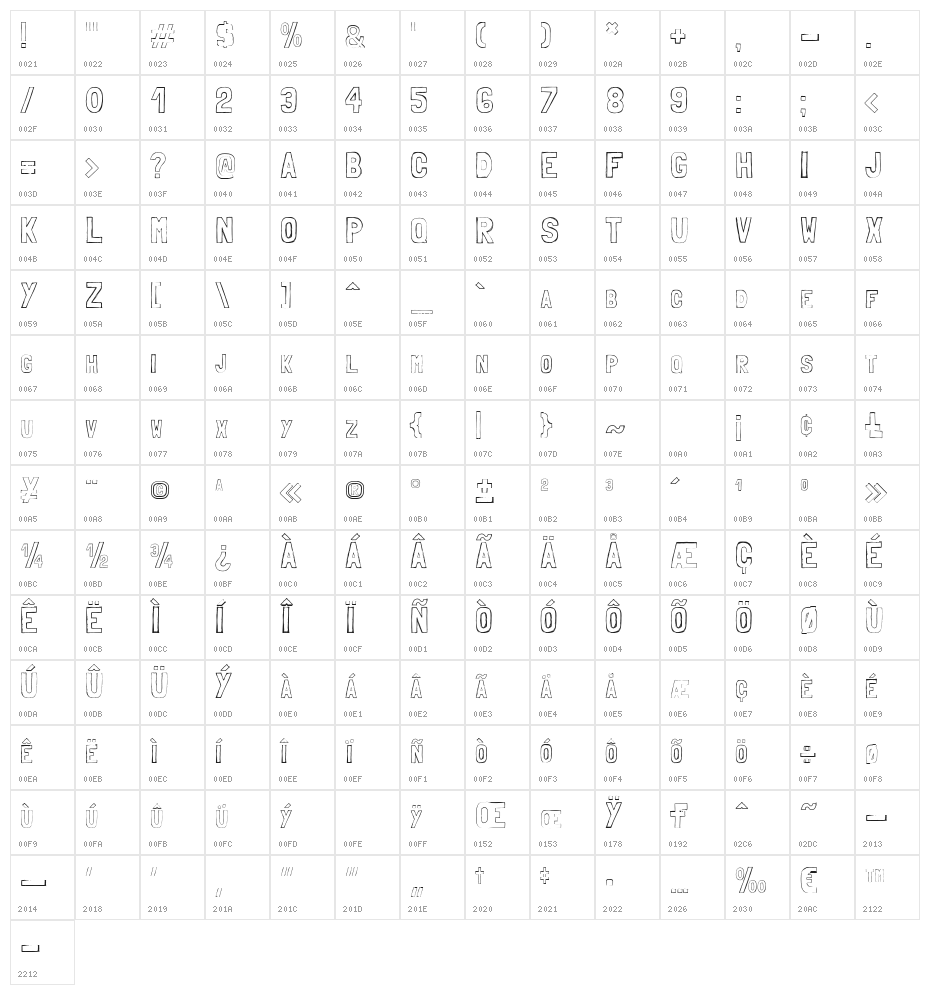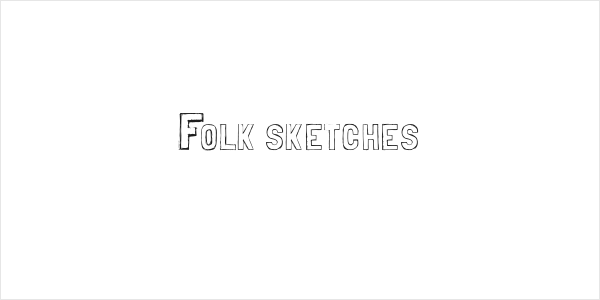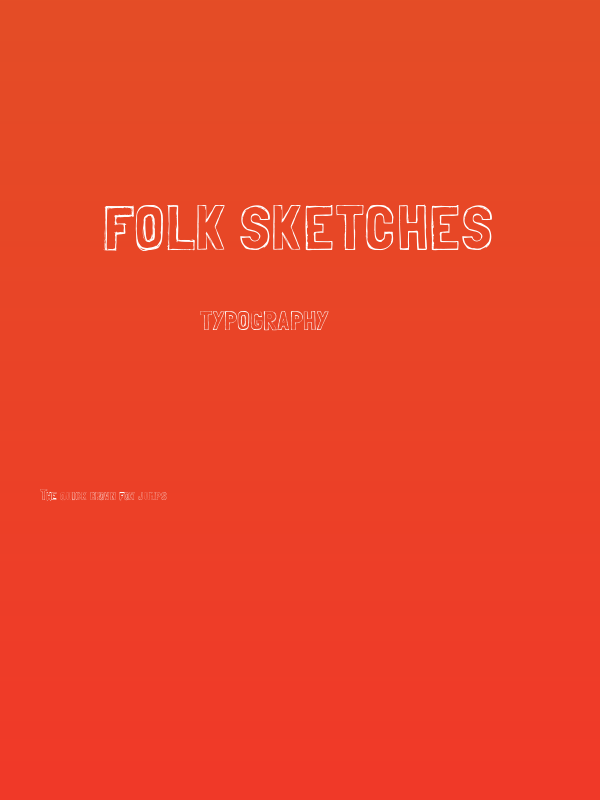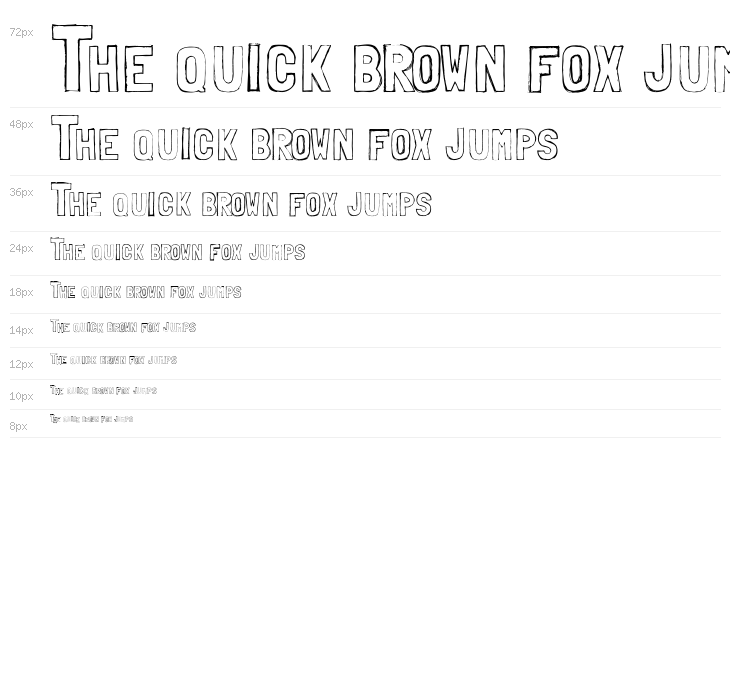
Folk sketches Font
Folk sketches Description
This font features a hand-drawn, sketch-like appearance with a playful and artistic style. Each character is outlined with a rough, uneven stroke, giving it a rustic and handcrafted feel. The letters are bold and slightly irregular, adding to the charm and uniqueness of the font. The numbers and special characters follow the same design, maintaining consistency across the set. This font is perfect for projects that require a personal touch or an artistic flair, such as invitations, posters, or creative branding.
| Overall Style | Artistic, Handcrafted |
| Use Case | Headlines, Creative projects |
| Proposed Projects | Ideal for creative projects like invitations, posters, and artistic branding. |